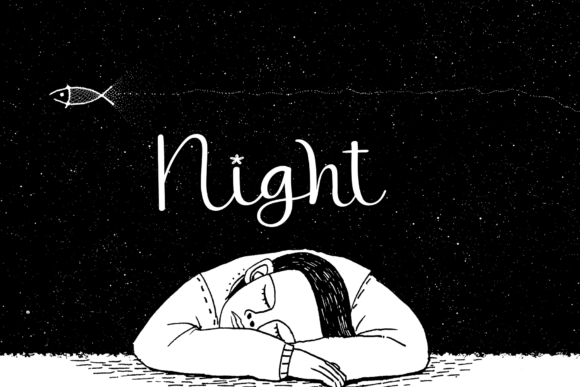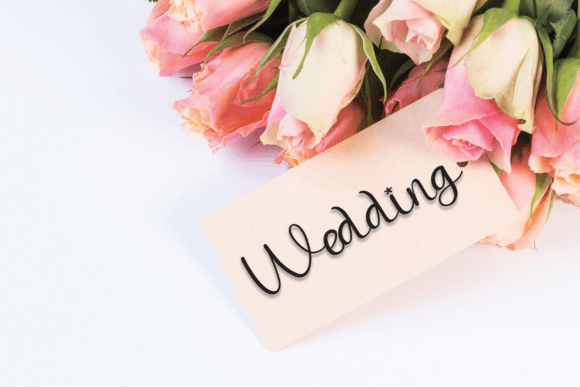
Christmas Font
About Christmas Font Download
The Christmas Font Download is a fun and friendly handwritten typeface designed to spread cheer and creativity across your projects. With smooth handwritten strokes and a joyful personality, this font works beautifully for both personal crafts and professional design. Whether you’re making greeting cards, invitations, or digital layouts, Christmas adds warmth and festive charm.
A Handwritten Script with Festive Energy
The Christmas script font combines casual handwritten flow with modern balance. As a result, it feels approachable, stylish, and versatile. Furthermore, it adapts seamlessly to both small stationery and larger branding projects, which makes it a flexible tool for designers.
Perfect for Holiday Invitations and Greeting Cards
Handwritten fonts always bring personality, especially during festive celebrations. The Christmas Font is ideal for Christmas cards, wedding invitations, thank you notes, and seasonal greetings. Because of its cheerful handwritten strokes, every design feels heartfelt and unique. In addition, it ensures that your projects leave a lasting impression.
Branding and Logo Design with Christmas Font
Typography plays an important role in shaping brand identity. The Christmas handwritten font is excellent for boutique logos, product packaging, and festive marketing designs. Its playful handwritten energy gives businesses a friendly yet professional personality. Therefore, it works particularly well for holiday-themed products, crafts, and creative industries.
Posters, Titles, and Seasonal Displays
The Christmas Font Download also shines in posters, magazines, banners, and book covers. It maintains clarity across all sizes while adding cheerful handwritten charm. Consequently, it is a dependable option for designers who want readability with a festive look.
In today’s digital-first world, fonts must be both adaptable and eye-catching. The Christmas typeface integrates smoothly into Instagram graphics, Pinterest boards, YouTube thumbnails, and blogs. Because of its festive handwritten personality, it makes digital content look modern, creative, and joyful.
Why Designers Choose Christmas Typeface
Designers value fonts that balance personality with usability. The Christmas handwritten script keeps its festive character while remaining legible. This makes it a reliable option for hobbyists and professionals alike. Moreover, its timeless charm ensures it will stay relevant for holiday projects in the future.